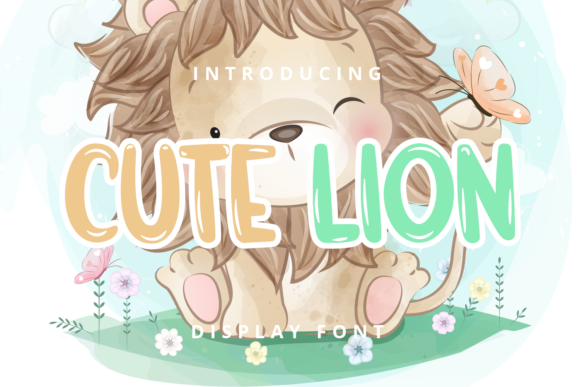
Cute Lion Font
**Step into a World of Whimsy with Cute Lion Font**
Escape the ordinary with Cute Lion, a font that transforms your designs into a captivating symphony of joy. Its playfully crafted curves and gentle strokes evoke a sense of childlike wonder, making it the perfect choice for projects that demand a touch of lighthearted charm.
With its energetic and vibrant personality, Cute Lion adds a sprinkle of magic to children's stories, educational materials, and school projects. Each character leaps from the page, inviting young minds on an adventure of imagination and discovery. The font's bold presence and readability make it ideal for grabbing attention in headlines, posters, and social media graphics.
**Ignite Your Creativity with Endearing Playfulness**
Cute Lion's delightful demeanor is not limited to children-themed designs. Its versatility shines in projects seeking a touch of whimsy and imagination. Bring life to invitations, greeting cards, and personal branding with its captivating charm.
Embrace the power of Cute Lion to:
- Captivate young readers with enchanting children's books
- Create playful educational materials that make learning a joy
- Infuse school projects with a burst of creativity and fun
- Craft invitations and greeting cards that spread happiness
- Elevate personal branding with a touch of whimsical flair
**Exceptional Quality, Effortless Execution**
At the heart of Cute Lion lies exceptional craftsmanship, ensuring that your designs shine with brilliance. Its smooth curves and precise strokes render beautifully across various platforms, from print to digital, without compromising its playful spirit. Experience the joy of using a font that combines aesthetic excellence with effortless execution.